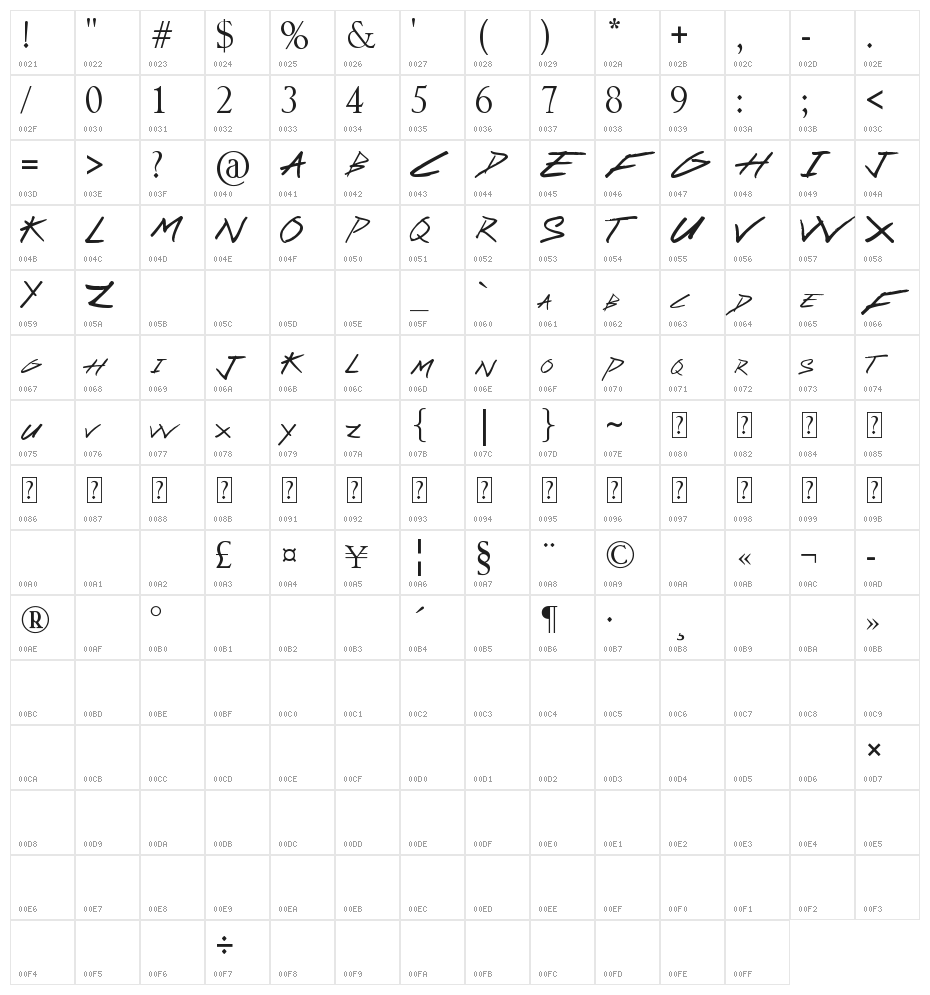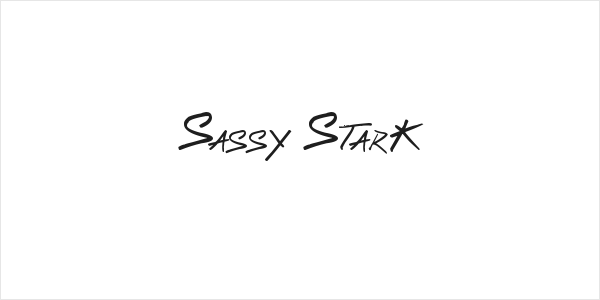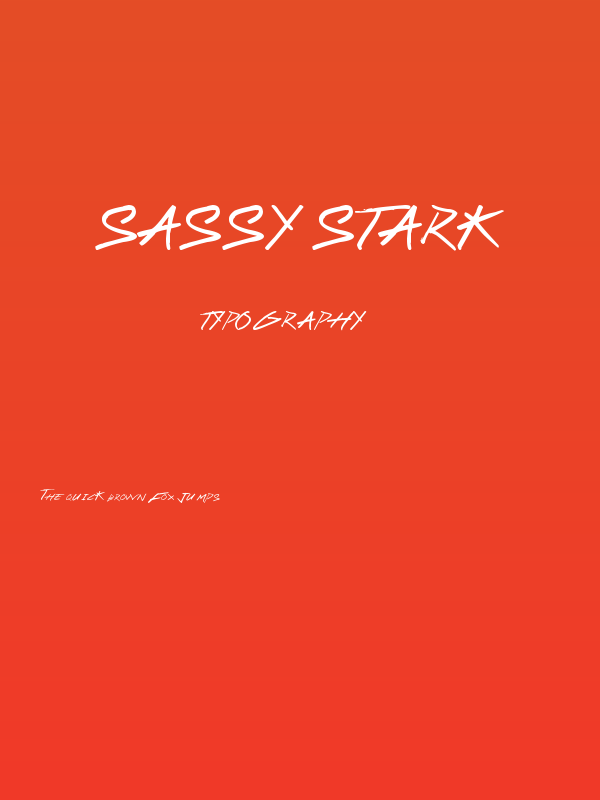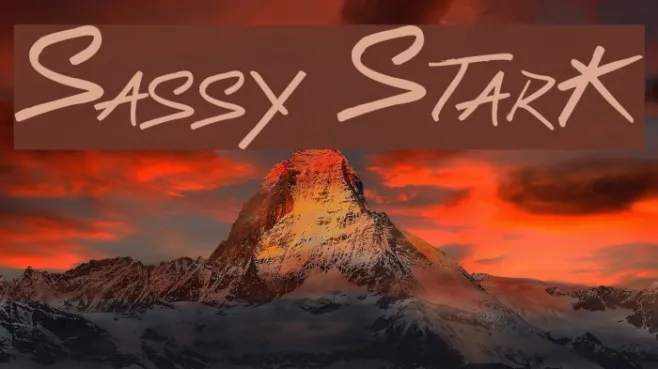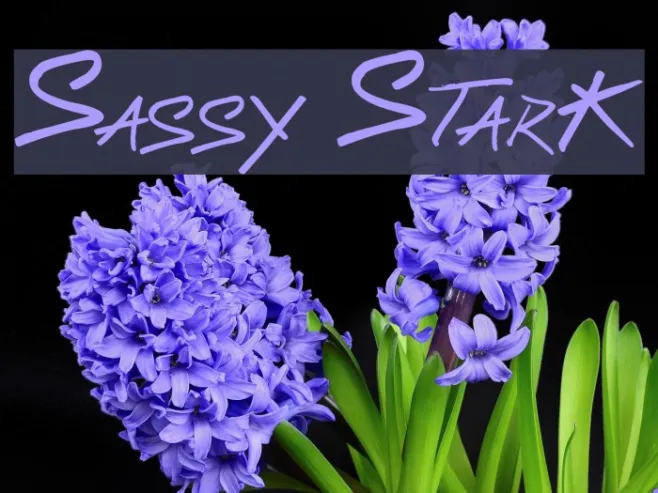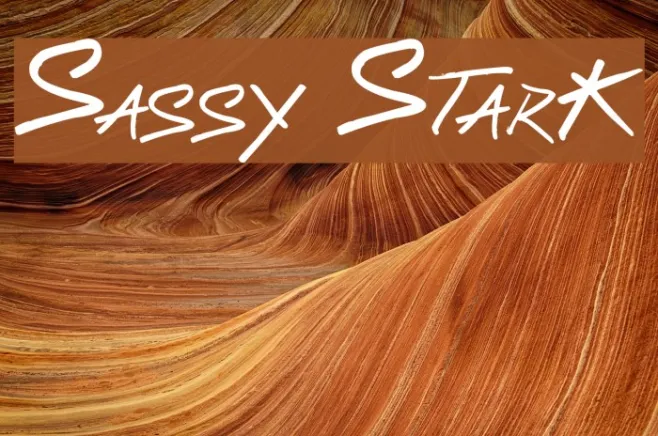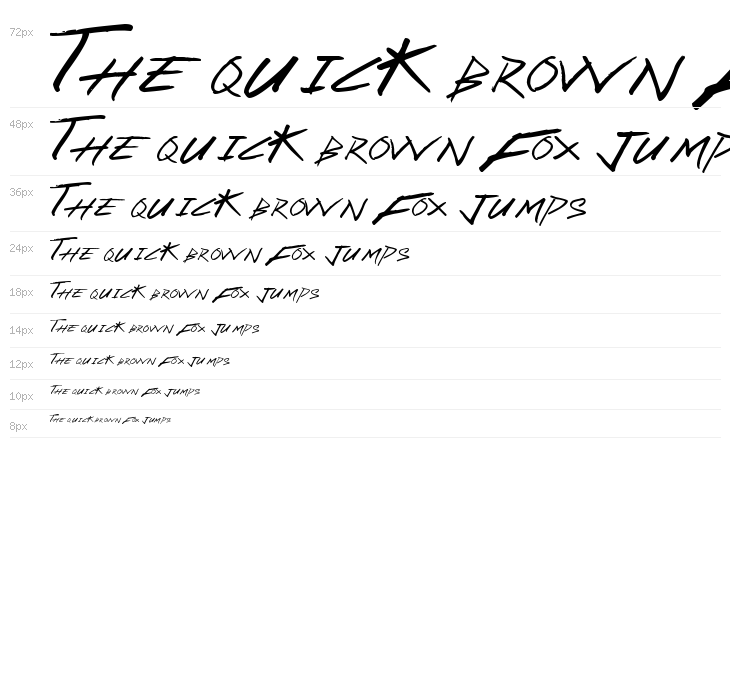
Sassy Stark Font
Sassy Stark Description
This font features a dynamic and expressive style, characterized by its handwritten, cursive appearance. The letters are slanted, with a fluid and energetic flow that suggests movement and spontaneity. The uppercase and lowercase letters maintain a consistent style, with some letters like 'T' and 'N' having distinctive, bold strokes that stand out. The numerals are clear and legible, complementing the overall style with a slightly more structured form. Special characters are included, maintaining the same lively and artistic flair. This font is perfect for projects that require a personal touch or a creative, informal vibe.
SASSY-STARK UPPERCASE
SASSY-STARK LOWERCASE
SASSY-STARK OTHER CHARS